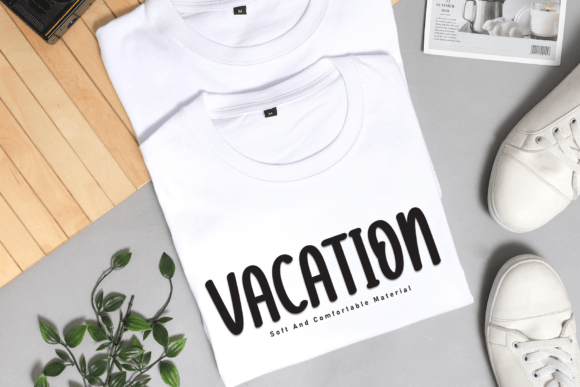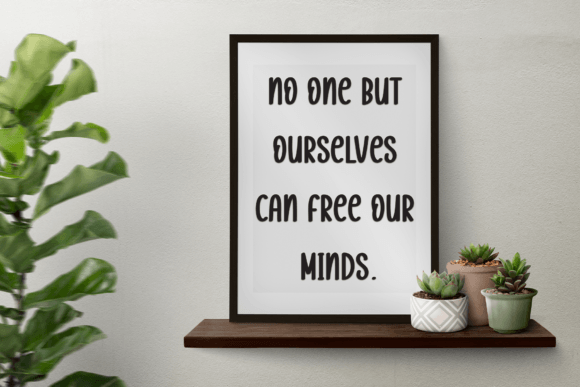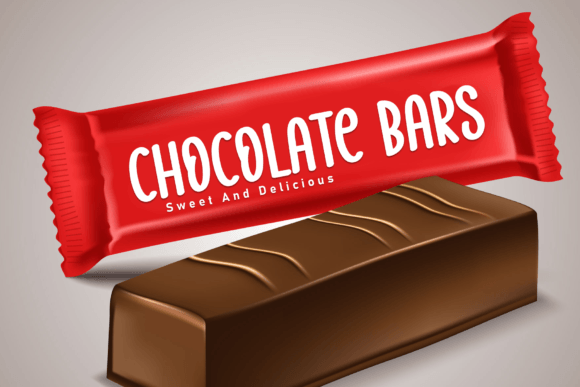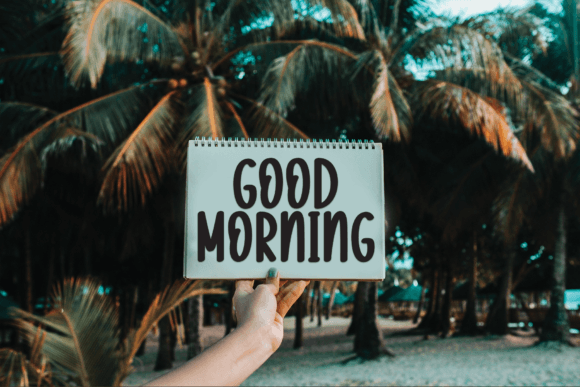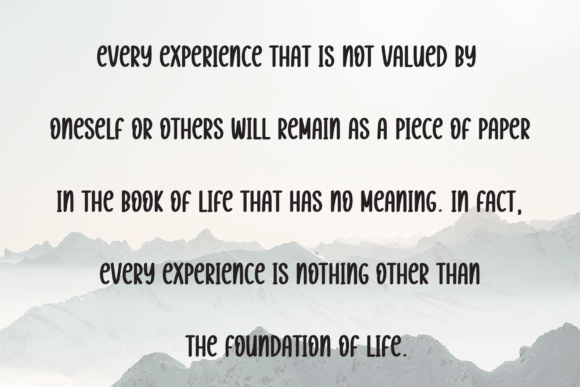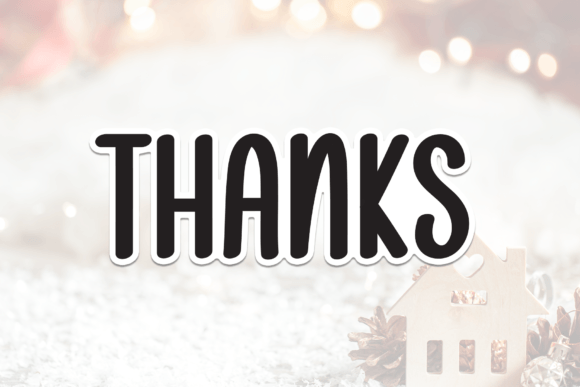
Introduction to Beautiful Christmas Font
Beautiful Christmas is a sweet and friendly handwritten font.
Key Features of Beautiful Christmas Font
Why Choose Beautiful Christmas Font?
Beautiful Christmas Font offers exceptional quality and versatility, making it a valuable addition to your design toolkit. Whether you’re creating for personal projects or commercial use, Beautiful Christmas Font delivers professional results.